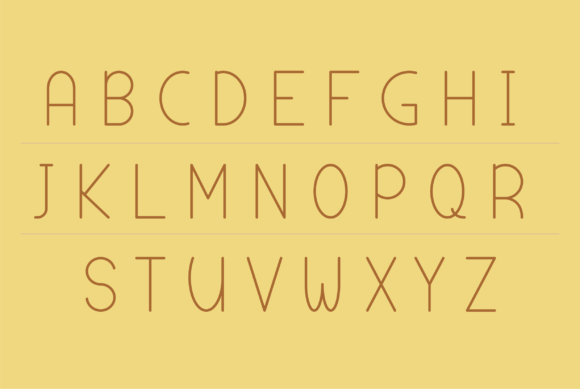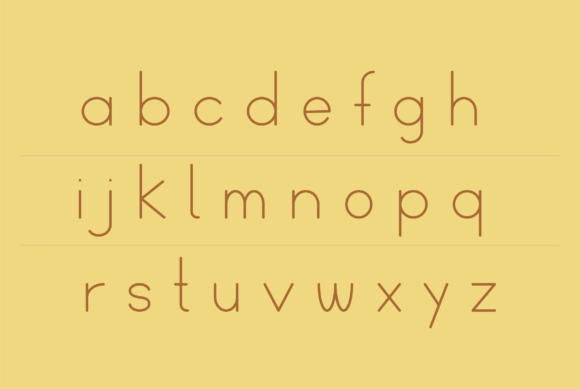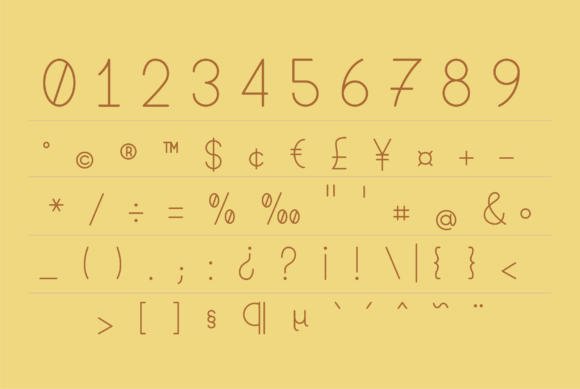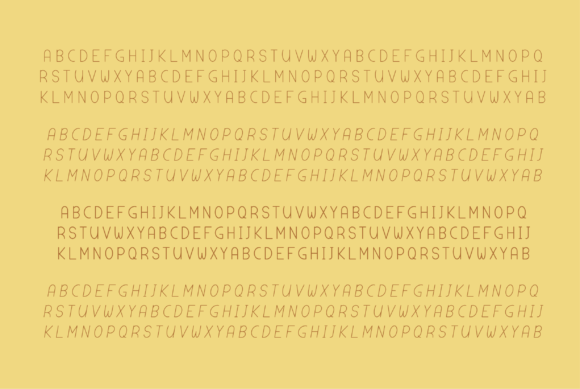
Abecedário Font
About Abecedário Font
Abecedário is cute and simple handwritten font. Its casual charm makes it appear wonderfully down-to-earth, readable and, ultimately, incredibly versatile. It will add a special touch to your upcoming crafting projects.